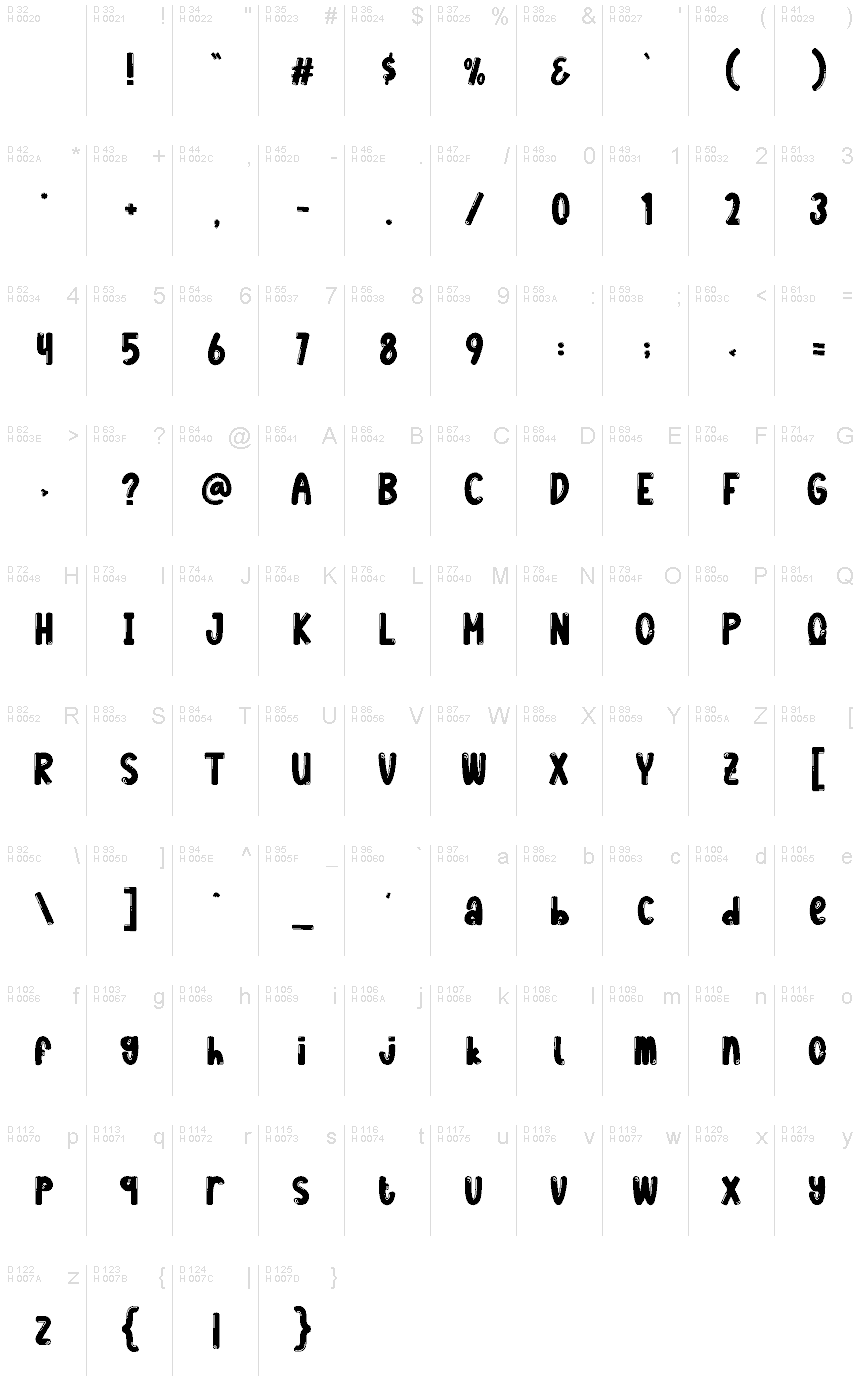
Mayoral
Mayoral font by Scratchones is a decorative display free font with a condensed width. The retro design offers a whimsical and casual style with decorative elements suitable for youthful projects. The clean yet vibrant lines embody a stylish and modern appeal with slight imperfections for that irresistible handmade feel.
Mayoral font is ideally used in packaging design, branding designs, book covers, online posts, posters, logos, apparel designs, diaries or notebooks cover design and much more. Websites can also benefit from the style of this typeface as it fits perfectly within headings or sub-headings that need extra attention in web pages.